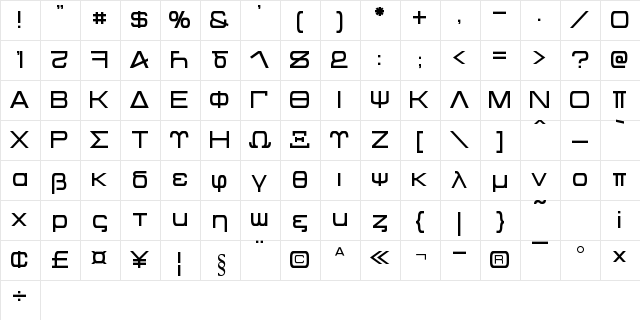
Kentaurus Regular
Design Context for Kentaurus Typeface
Kentaurus takes a measured approach to typography — its balanced proportions and neutral character make it a reliable workhorse for both digital and print work.